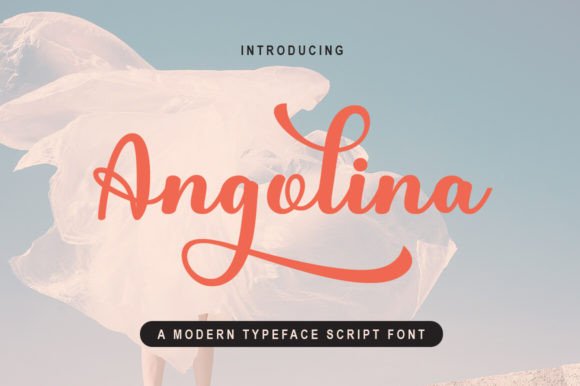
Introducing Angolina Font: The Soft and Elegant Script Font for Creative Projects
Are you looking for a font that can add a personal touch to your creative projects? Do you want to create beautiful and elegant designs that stand out from the crowd? Look no further than Angolina Font, a stunning script font with a soft and elegant handwritten style. In this article, we’ll explore the features and benefits of Angolina Font, and how it can elevate your designs to the next level.
What is Angolina Font?
Angolina Font is a script font that is designed to mimic the look and feel of handwritten writing. With its soft and elegant strokes, Angolina Font is perfect for creative projects that require a personal touch. Whether you’re designing invitations, branding materials, or other visual elements, Angolina Font is the perfect choice.
Key Features of Angolina Font
- Soft and Elegant Handwritten Style: Angolina Font features a soft and elegant handwritten style that is perfect for creating beautiful and sophisticated designs.
- Script Font: Angolina Font is a script font that is designed to mimic the look and feel of handwritten writing.
- Perfect for Creative Projects: Angolina Font is perfect for creative projects like invitations, branding, and designs that need a personal touch.
- Elegant and Sophisticated: Angolina Font is elegant and sophisticated, making it perfect for designs that require a high level of professionalism.
Benefits of Using Angolina Font
There are many benefits to using Angolina Font in your creative projects. Here are just a few:
- Adds a Personal Touch: Angolina Font adds a personal touch to your designs, making them more unique and engaging.
- Creates a Sophisticated Look: Angolina Font creates a sophisticated and elegant look that is perfect for high-end designs.
- Versatile: Angolina Font is versatile and can be used in a variety of creative projects, from invitations to branding materials.
- Easy to Read: Angolina Font is easy to read, making it perfect for designs that require a clear and concise message.
How to Use Angolina Font in Your Designs
Using Angolina Font in your designs is easy. Here are a few tips to get you started:
- Use it for Headings: Angolina Font is perfect for headings and titles, where its elegant and sophisticated style can really shine.
- Pair it with Other Fonts: Angolina Font pairs well with other fonts, making it easy to create a unique and visually appealing design.
- Experiment with Colors: Angolina Font looks great in a variety of colors, so don’t be afraid to experiment and find the perfect color for your design.
Who Can Benefit from Using Angolina Font?
Angolina Font is perfect for a variety of designers and crafters, including:
- Graphic Designers: Graphic designers can use Angolina Font to create beautiful and elegant designs for their clients.
- Stationery Designers: Stationery designers can use Angolina Font to create stunning invitations, greeting cards, and other paper products.
- Crafters: Crafters can use Angolina Font to add a personal touch to their handmade projects, such as scrapbooking and journaling.
In conclusion, Angolina Font is a stunning script font with a soft and elegant handwritten style that is perfect for creative projects like invitations, branding, and designs that need a personal touch. With its key features, benefits, and versatility, Angolina Font is a must-have for designers and crafters who want to create beautiful and sophisticated designs. So why wait? Try Angolina Font today and see the difference it can make in your designs!